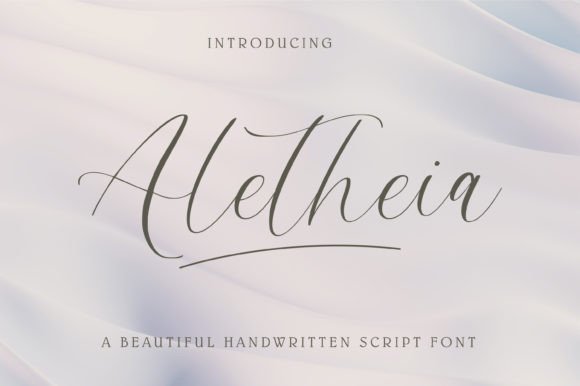
The Elegant Aletheia Font: A Designer’s New Best Friend
I’ll never forget the time I was working on a wedding invitation project, and my client asked for a font that was elegant, yet playful. I scoured the internet, trying out font after font, but nothing seemed quite right. That was until I stumbled upon Aletheia, an exquisite handwritten font that stole my heart. In this article, I’ll share my love for Aletheia, its features, and how to make the most of it in your design projects.
An Honest Review of Aletheia Font
What I Love About Aletheia ✨
- 💕 Elegant and beautiful handwritten script
- ✅ Perfect for logos, branding, and wedding invitations
- 🎉 Highly versatile for various design projects, including business cards, greeting cards, and more
- 👍 Well-suited for digital and print designs
- ⚠️ Limited availability of stylistic alternates
- 😐 Not ideal for body text due to its script nature
A Practical Guide to Using Aletheia Font
- Experiment with OpenType features, such as ligatures and stylistic alternates, to add a personal touch to your design
The Story Behind Aletheia Font
Aletheia was designed with love and care by a talented type designer who aimed to create a beautiful, elegant script font. The name “Aletheia” comes from Greek, meaning “truth.” The designer wanted to craft a font that would bring truth and authenticity to various design projects.
Q: What is Aletheia font best used for?
A: Aletheia font is perfect for logos, branding, wedding invitations, business cards, greeting cards, signboards, posters, magazines, social media, planner prints, crafting, and websites.